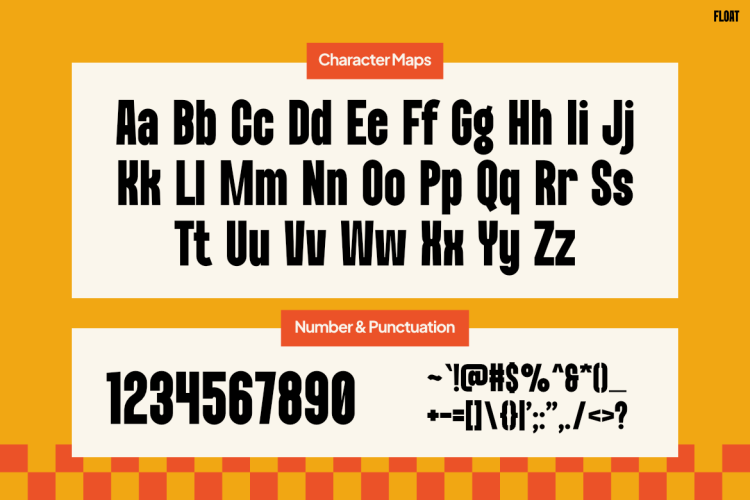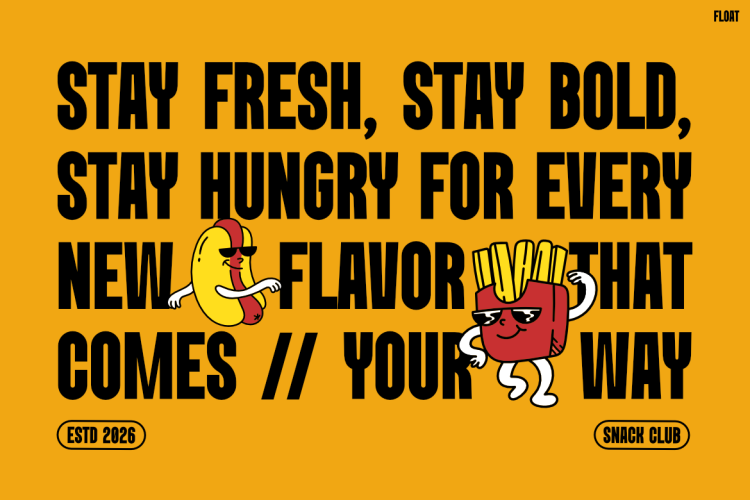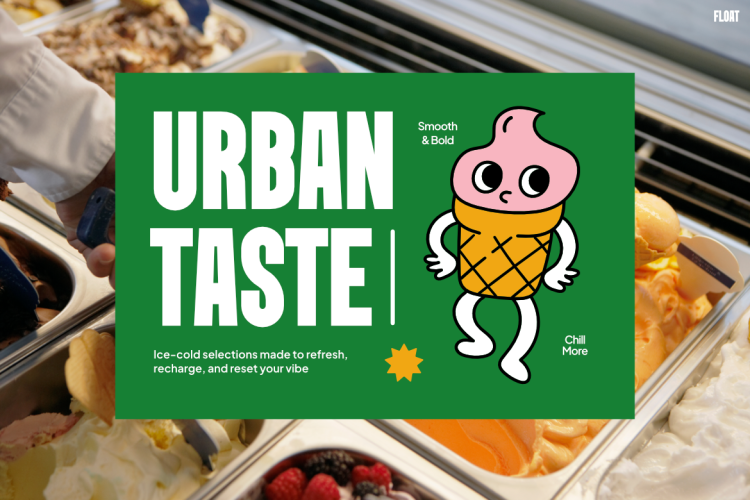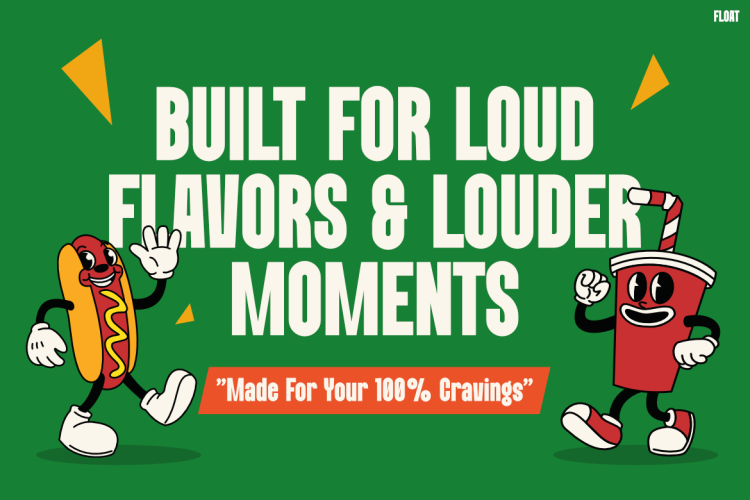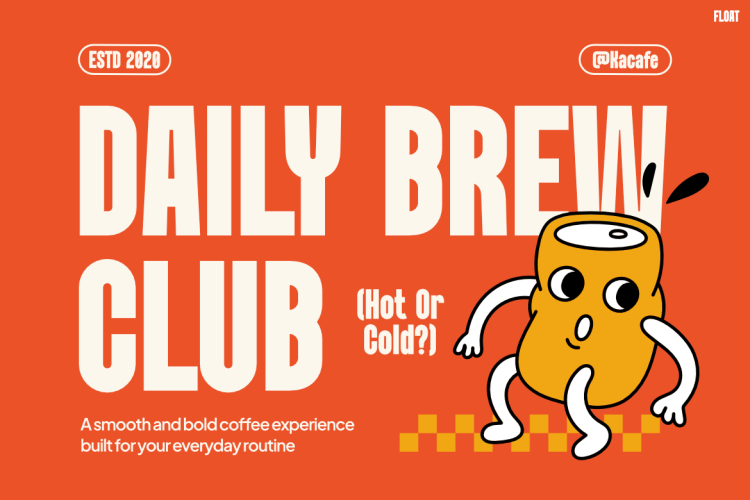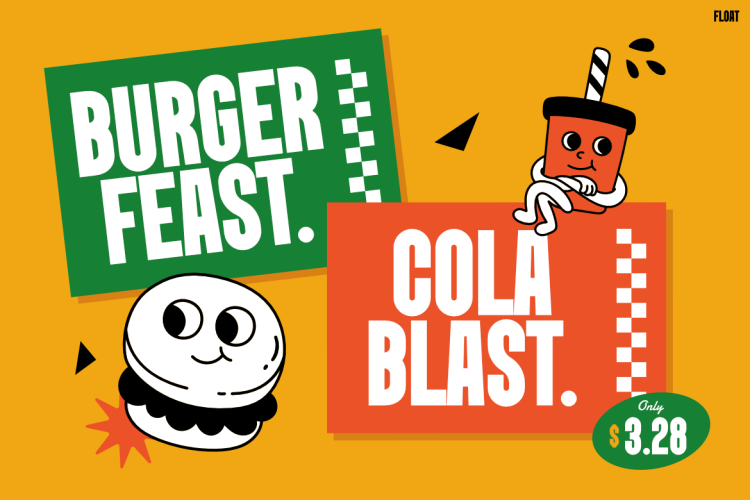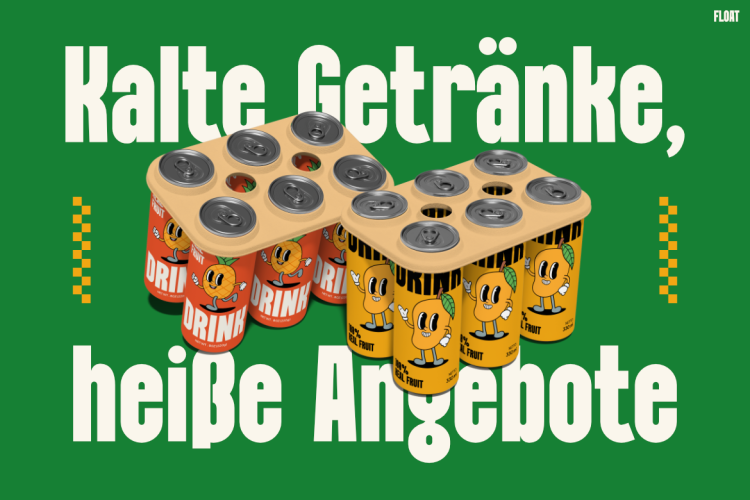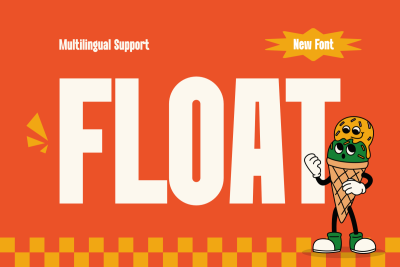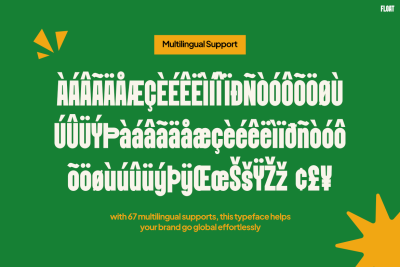
FLOAT โ Bold Modern Font for Loud & Fresh Designs
Modern Font FLOAT is a bold and energetic display typeface designed to make your designs stand out instantly. At first glance, its tall, condensed letterforms and strong geometric structure create a powerful visual impact. Moreover, the clean edges combined with playful proportions give it a modern yet fun personality. Because of its bold presence, every word feels confident, dynamic, and attention-grabbing. In addition, FLOAT supports 67 languages, making it perfect for global projects. As a result, this font is not only stylish but also highly functional for impactful communication across different audiences.
Modern Font FLOAT is a striking display font crafted for modern, high-energy designs. Not only does it deliver a bold and clean look, but it also pairs perfectly with vibrant colors, food branding, and urban-style graphics. Furthermore, its compact and tall structure helps maximize space while keeping readability strong. Therefore, whether you are designing for print or digital media, FLOAT adds a fresh, trendy, and professional vibe. Ultimately, it transforms simple text into bold visual statements that demand attention.
Because of its bold and modern style, Modern Font FLOAT is ideal for:
- Food branding, packaging, and menu designs
- Streetwear and urban-style graphics
- Social media posts and promotional banners
- Restaurant ads and fast-food campaigns
- Posters, flyers, and bold headline designs
- International projects requiring 67 language support
In conclusion, Modern Font FLOAT is the perfect choice for designers who want strong, modern, and eye-catching visuals. So, add this powerful font to your collection today and create designs that feel bold, fresh, and unforgettable.